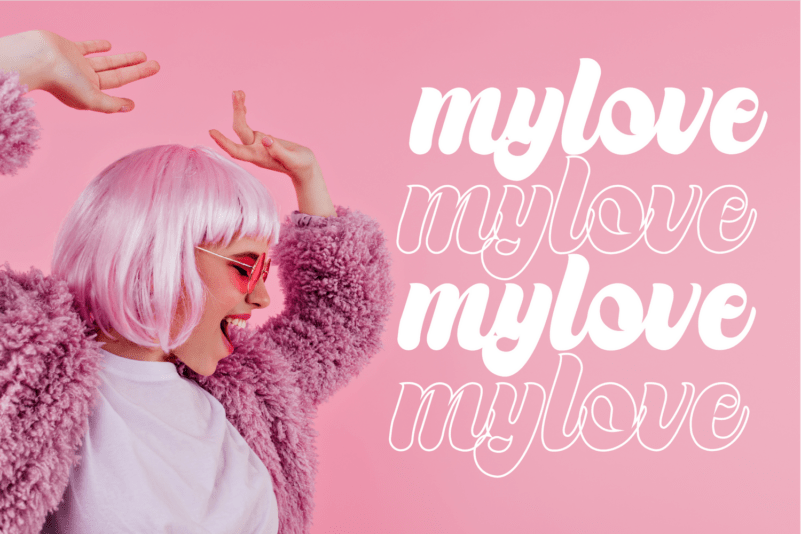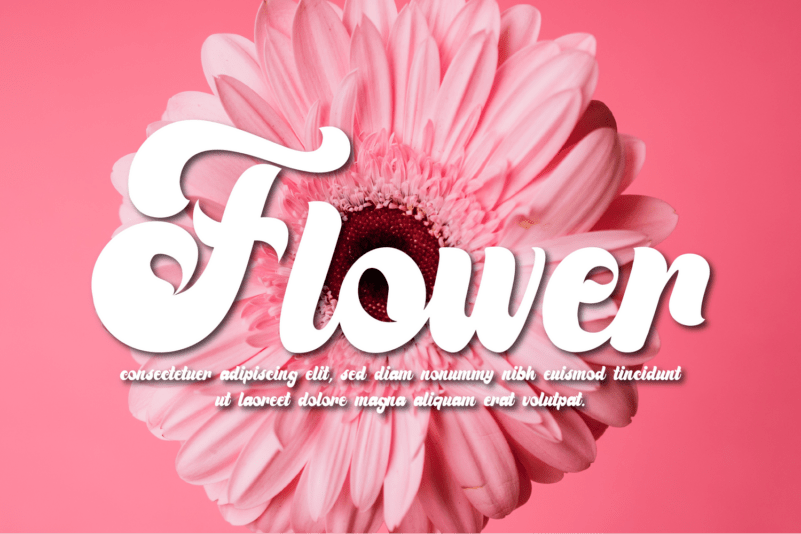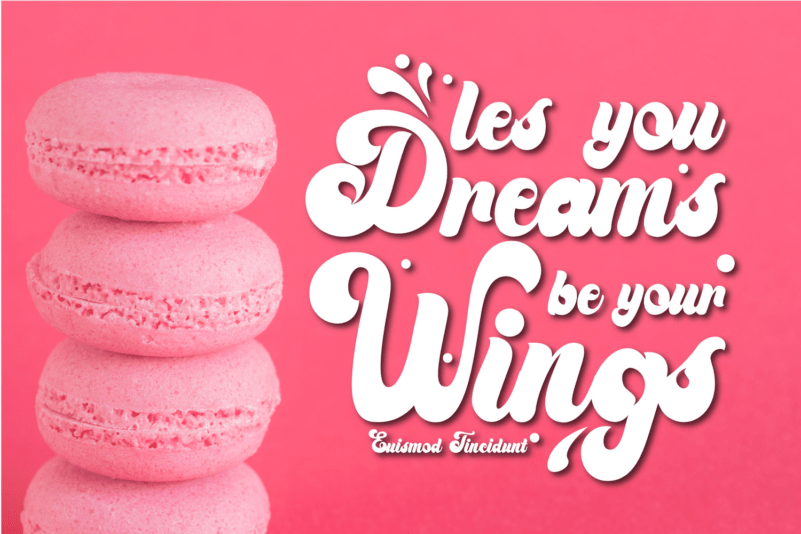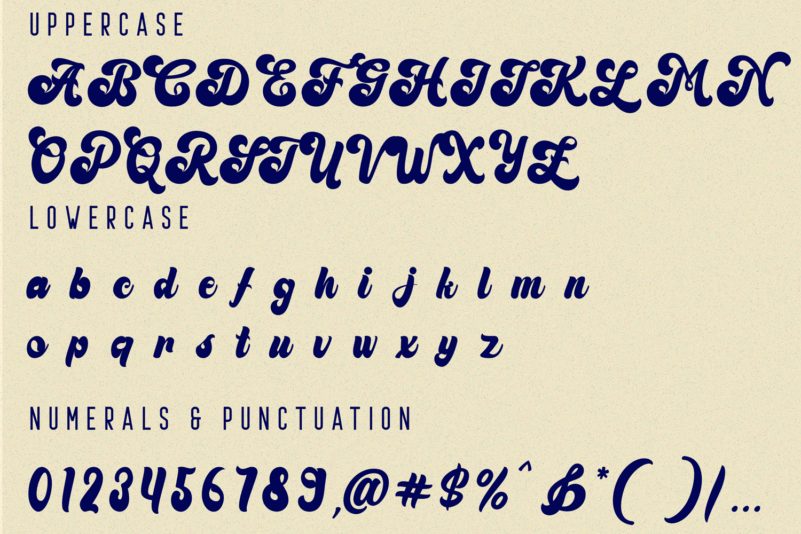
Thinking Script Font is a classic font that pays homage to the timeless elegance of traditional script lettering. Inspired by the calligraphic styles of the past, this font brings a touch of sophistication to your designs. Whether you’re working on branding projects, signage, or packaging, and the other various formal forms such as invitations, labels, logos, or any type of advertising purpose this font is your go-to choice for creating a memorable and distinct visual experience.